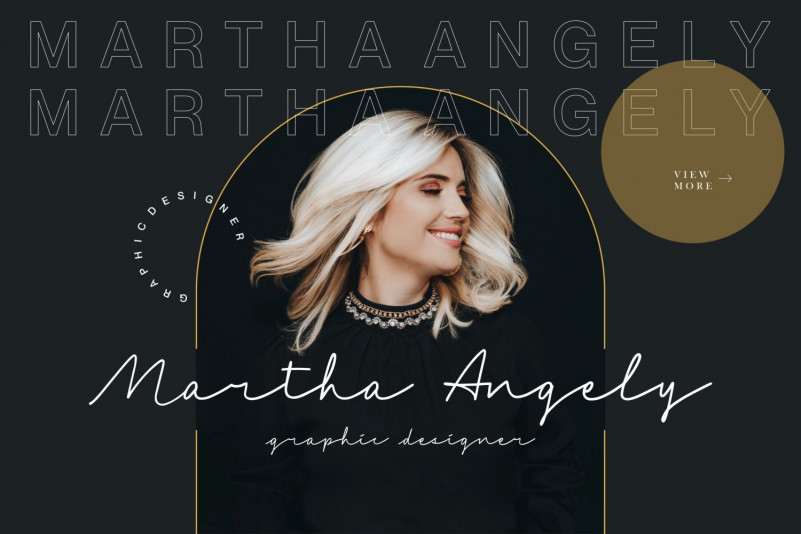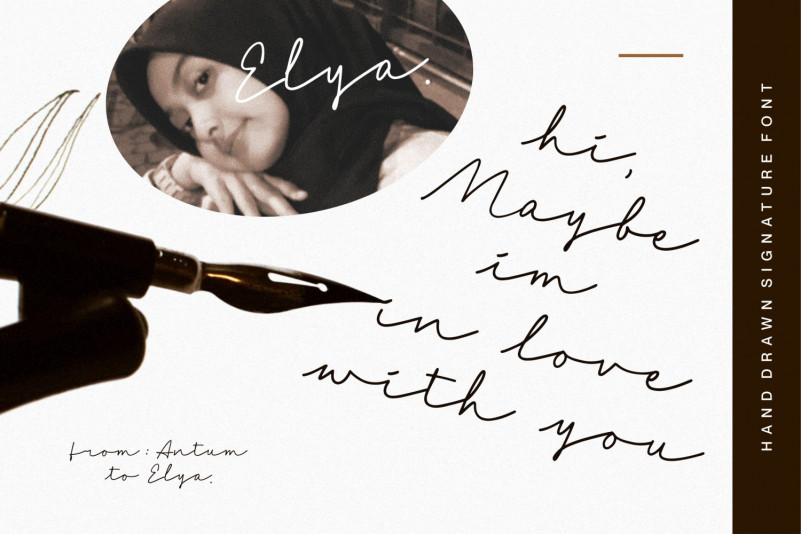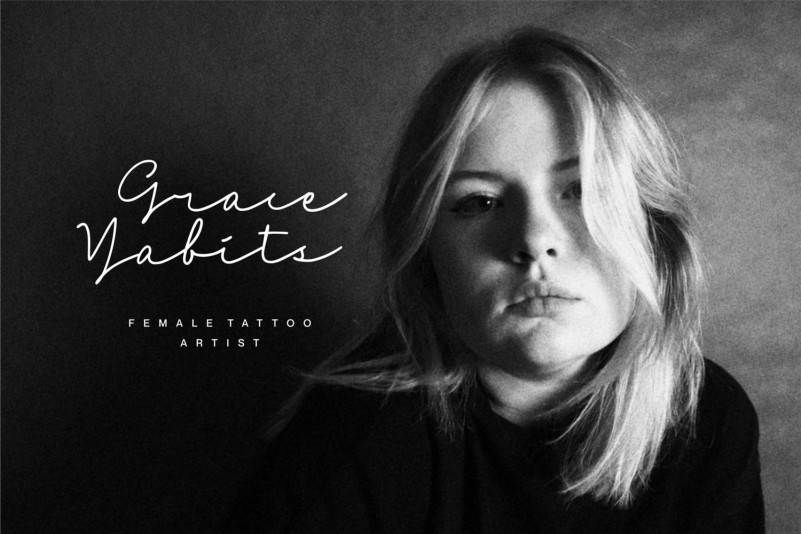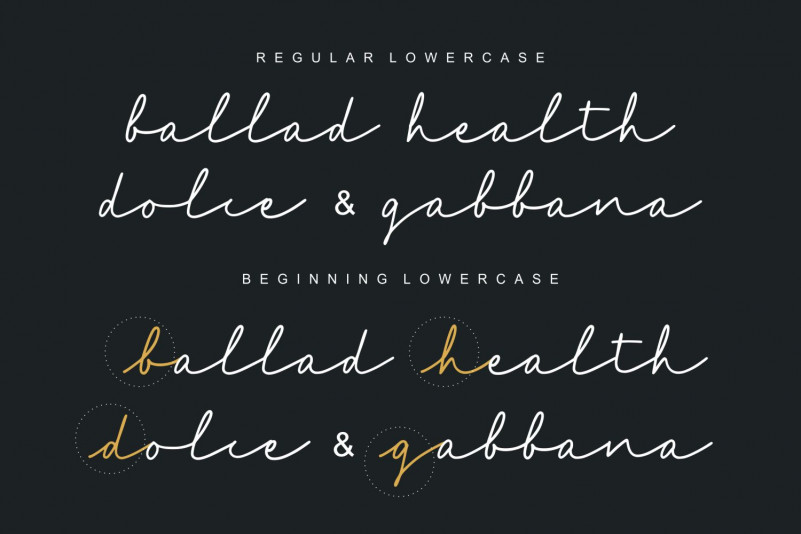
The Goblick Font
The Goblick Handwritten Font
This is a stylish and elegant script font. It works marvelously on letters, invitations or pretty much anything that requires a delicate touch. Fall in love with its incredibly versatile style and use it to create spectacular designs!